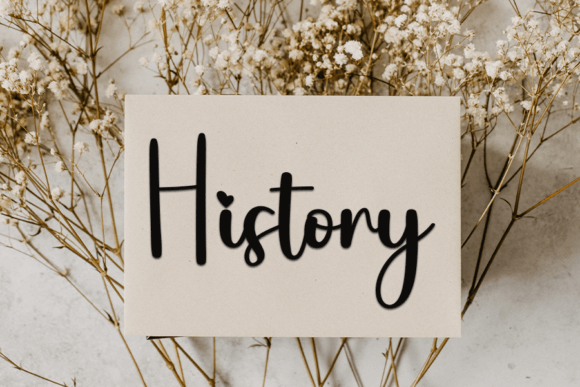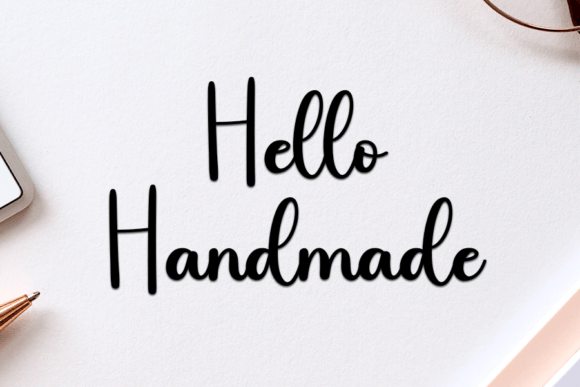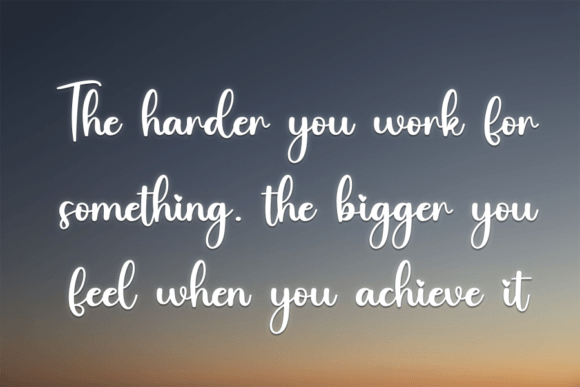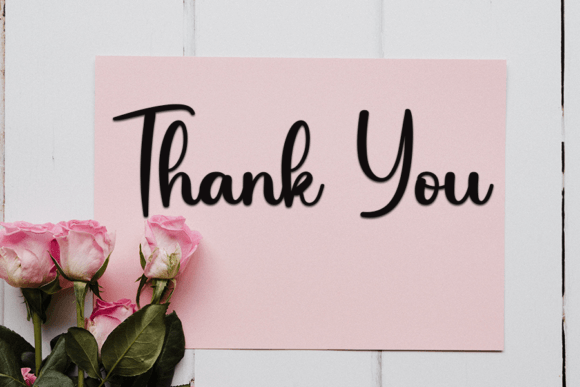
Introducing Family Font: The Perfect Handwritten Style for Your Designs
Are you tired of using the same old fonts for your designs? Look no further! Family Font is a delicate handwritten font that is carefully crafted to add a cool and unique touch to your creations. This versatile font is perfect for a wide range of design projects, from writing letters and invitations to labeling food products and creating titles.
What Makes Family Font Special?
Family Font is a one-of-a-kind handwritten font that is designed to bring a personal touch to your designs. Its delicate and elegant strokes make it perfect for creating beautiful and eye-catching text. The font is carefully crafted to ensure that it is easy to read and understand, making it perfect for use in a variety of design projects.
Uses of Family Font
Family Font is a versatile font that can be used in a wide range of design projects. Here are some of the ways you can use this amazing font:
- Writing Letters: Family Font is perfect for writing letters to friends and family. Its elegant and personal touch makes it ideal for creating beautiful and heartfelt letters.
- Creating Invitations: Whether you’re planning a wedding, birthday party, or baby shower, Family Font is the perfect choice for creating invitations. Its delicate and elegant strokes make it perfect for creating beautiful and eye-catching invitations.
- Food Products: Family Font is also perfect for labeling food products. Its elegant and personal touch makes it ideal for creating beautiful and eye-catching labels for food products such as baked goods, jams, and honey.
- Creating Titles: Family Font is also perfect for creating titles for books, movies, and other creative projects. Its elegant and personal touch makes it ideal for creating beautiful and eye-catching titles.
Why Designers and Crafters Love Family Font
Designers and crafters love Family Font for its unique and elegant style. Here are some of the reasons why:
- Unique Style: Family Font has a unique and elegant style that sets it apart from other fonts. Its delicate and personal touch makes it perfect for creating beautiful and eye-catching designs.
- Easy to Read: Family Font is easy to read and understand, making it perfect for use in a variety of design projects.
- Versatile: Family Font is a versatile font that can be used in a wide range of design projects, from writing letters and invitations to labeling food products and creating titles.
Tips for Using Family Font
Here are some tips for using Family Font in your designs:
- Use it for Headings: Family Font is perfect for use in headings and titles. Its elegant and personal touch makes it ideal for creating beautiful and eye-catching headings.
- Pair it with Other Fonts: Family Font can be paired with other fonts to create a unique and interesting design. Try pairing it with a bold font for a striking contrast.
- Experiment with Colors: Family Font looks great in a variety of colors. Experiment with different colors to find the one that works best for your design.
Family Font is a beautiful and versatile handwritten font that is perfect for a wide range of design projects. Its delicate and elegant strokes make it perfect for creating beautiful and eye-catching text. Whether you’re a designer or crafter, Family Font is a great addition to your font collection. So why wait? Download Family Font today and start creating beautiful and unique designs!